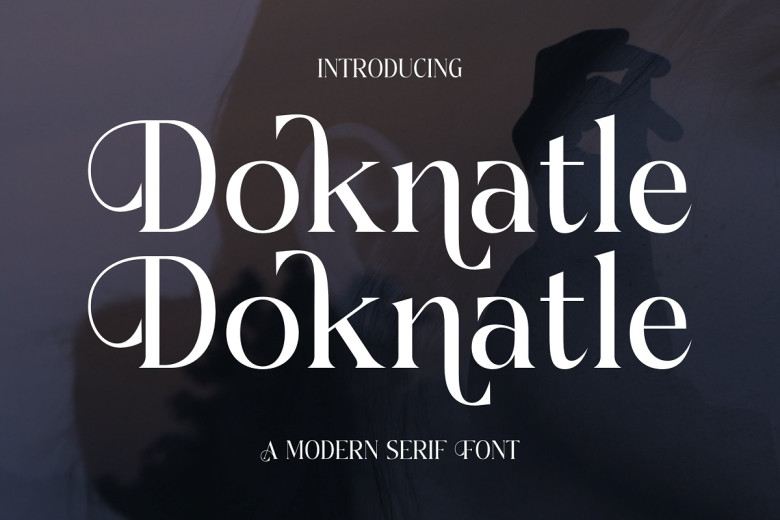
Doknatle Font
Doknatle features an original and modern aesthetic. As a classic serif font, Doknatle font can be used for luxurious logo designs, movie titles, t-shirts clothing magazines letters quotes and much more.
Doknatle Serif Font